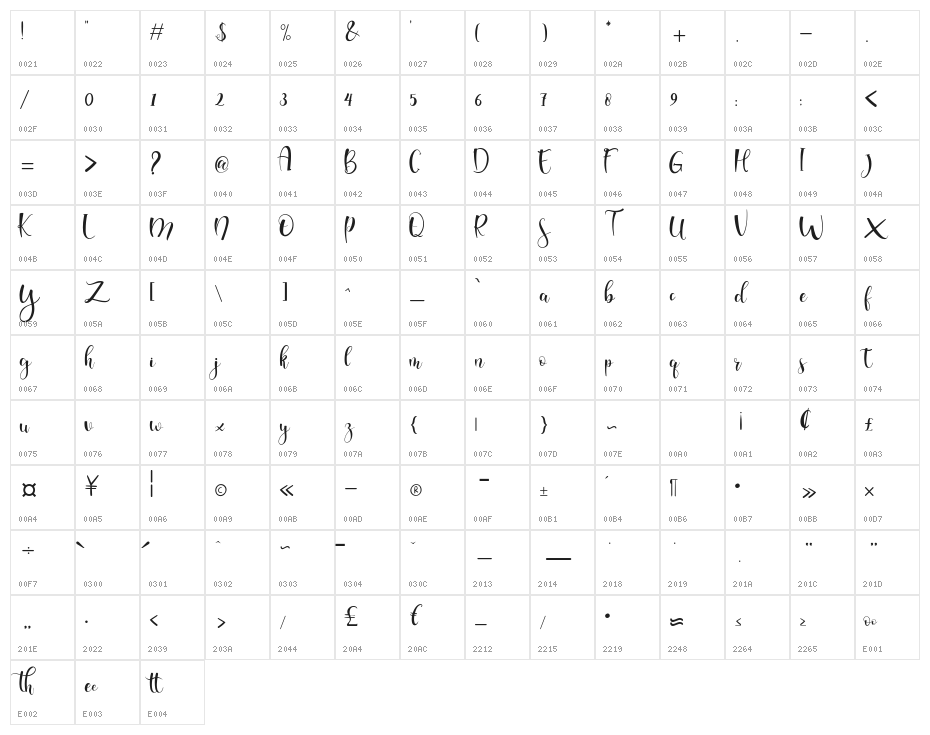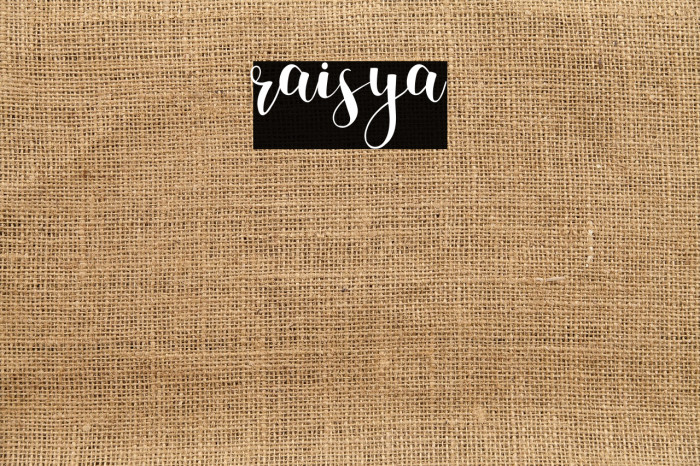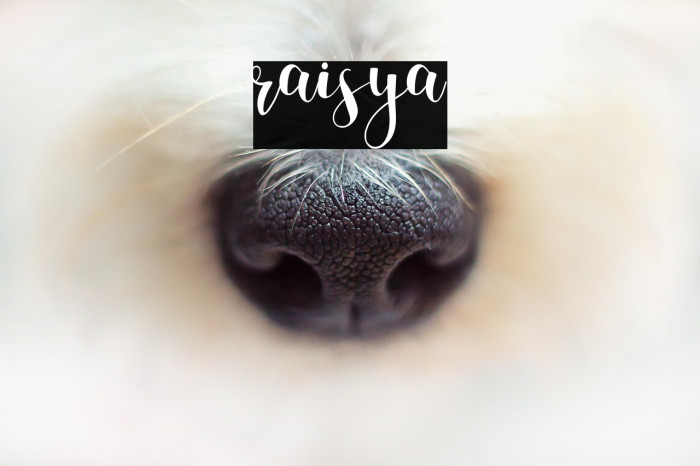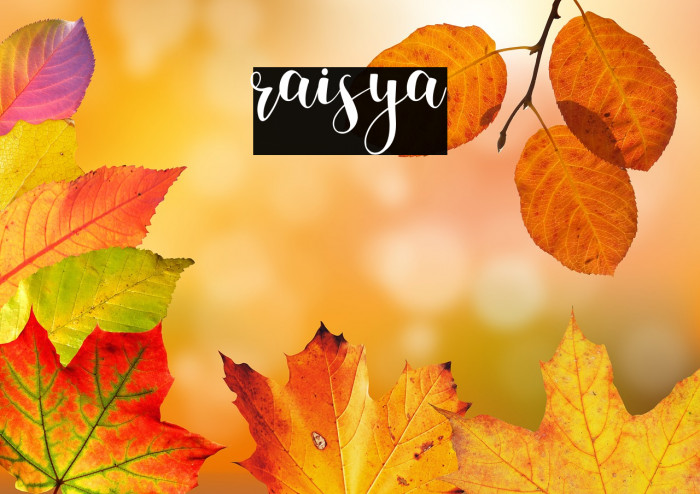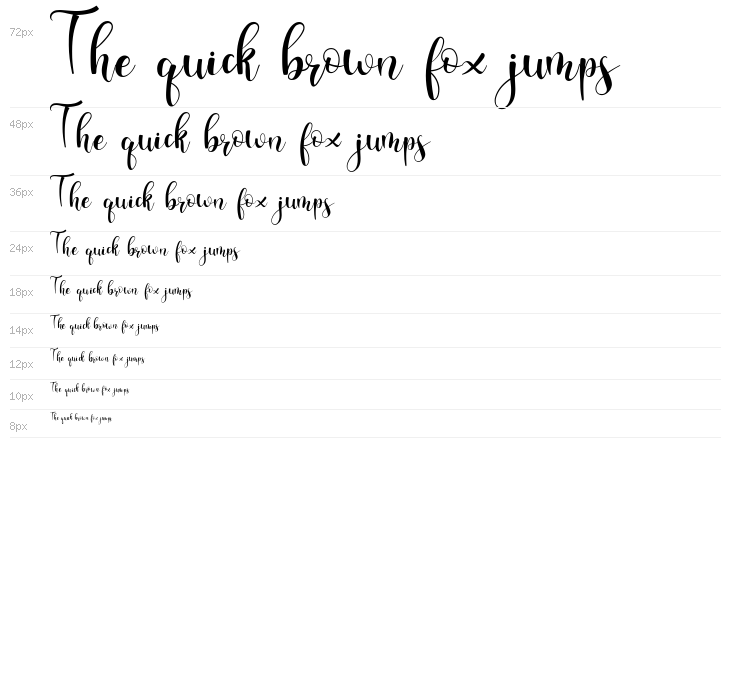
raisya Font
raisya Description
This font exudes a playful and artistic flair, characterized by its flowing, cursive style. The letters are elegantly crafted with a mix of thick and thin strokes, giving it a dynamic and lively appearance. The uppercase letters are bold and expressive, while the lowercase letters maintain a consistent, smooth flow. The numerals and special characters complement the overall style, adding to its versatility. This font is perfect for creative projects that require a touch of elegance and personality.
| Proposed Projects | Ideal for wedding invitations, greeting cards, branding, and decorative quotes. |